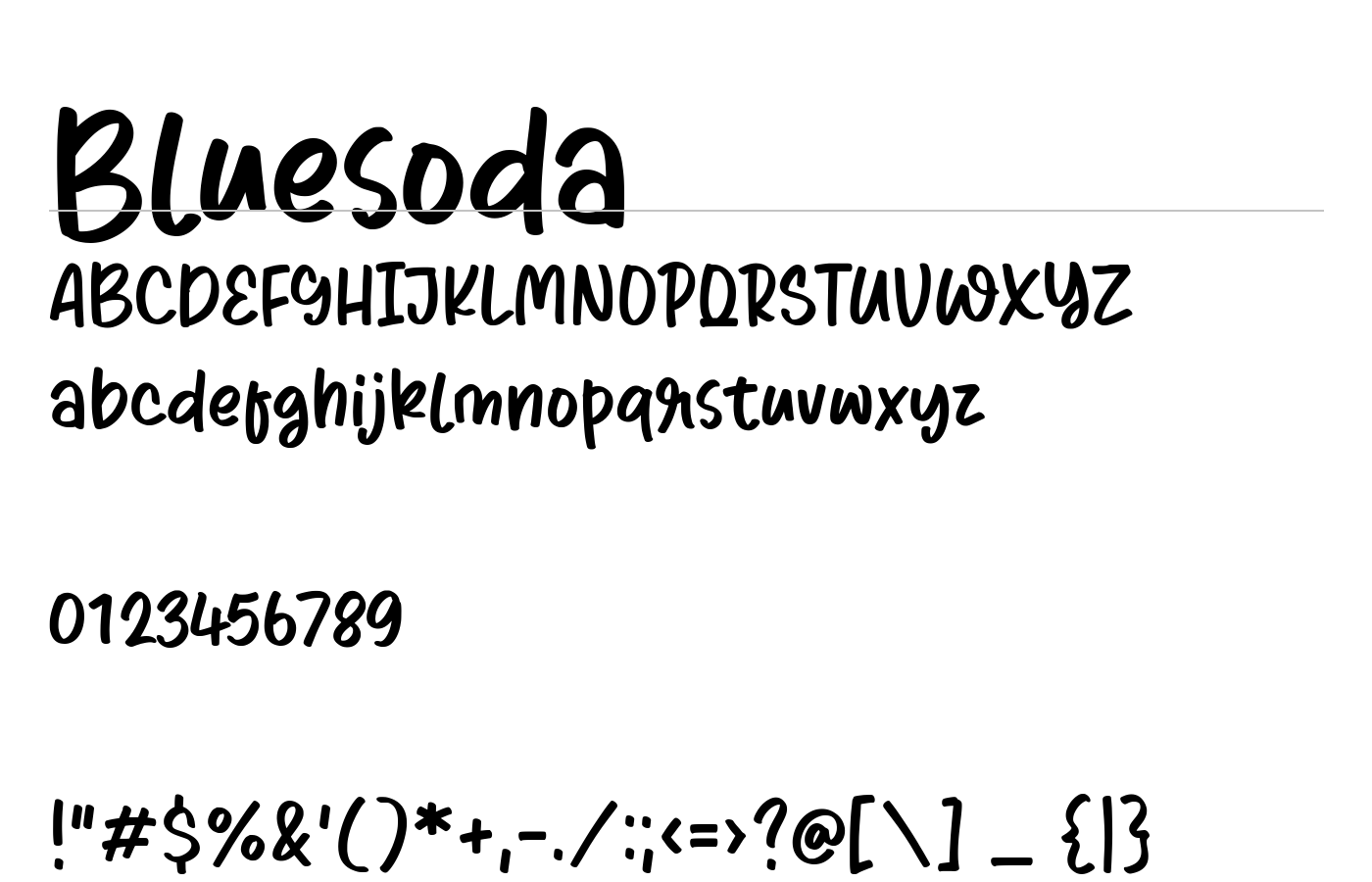
Bluesoda is a playful, casual handwritten font that brings a friendly and approachable vibe to any design. Its slightly irregular strokes and lively letterforms make it perfect for informal branding, posters, and creative projects that want to feel personal and fun. This font works well where a warm, energetic touch is needed, such as youth-oriented content, packaging, or social media graphics.
Bluesoda Font